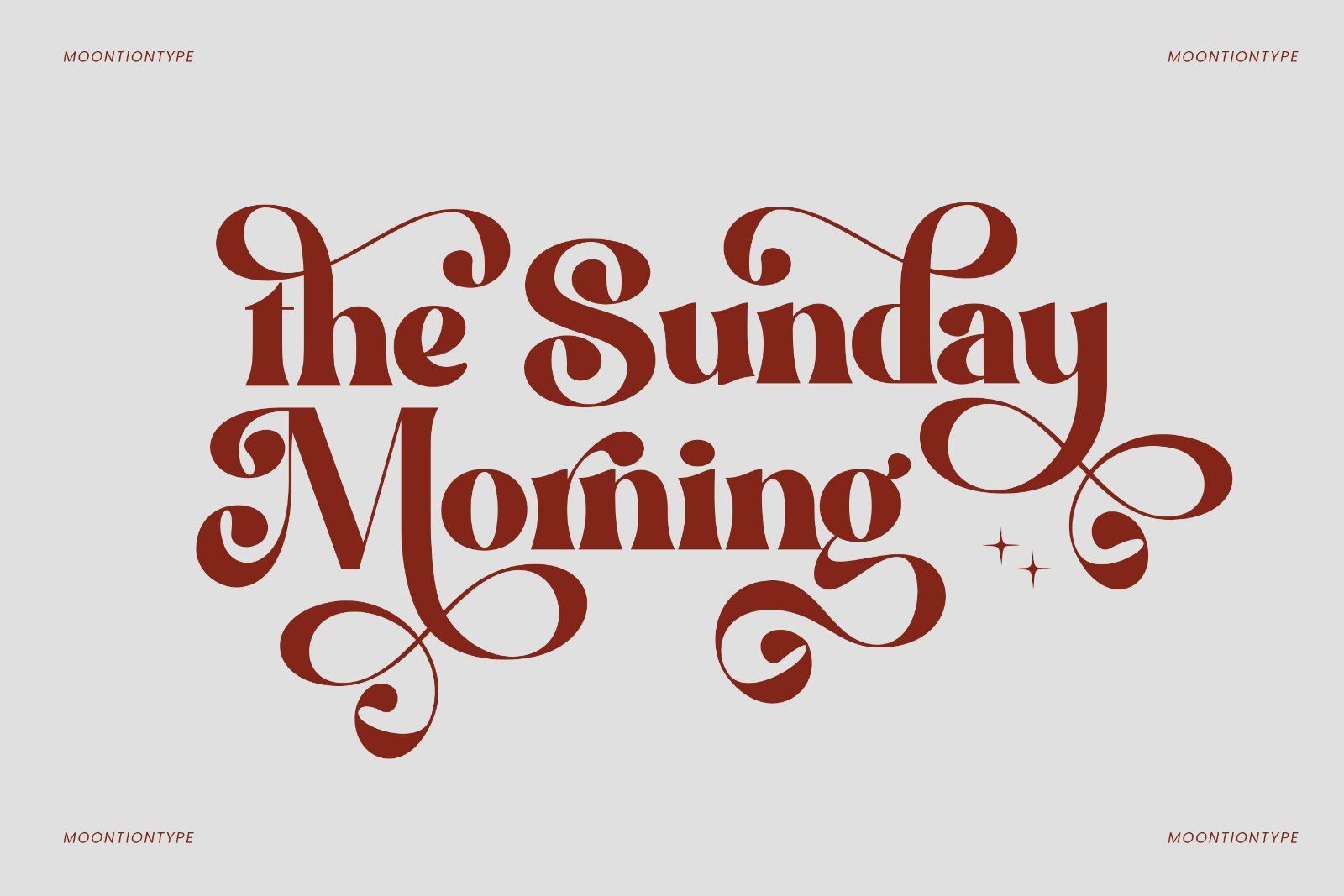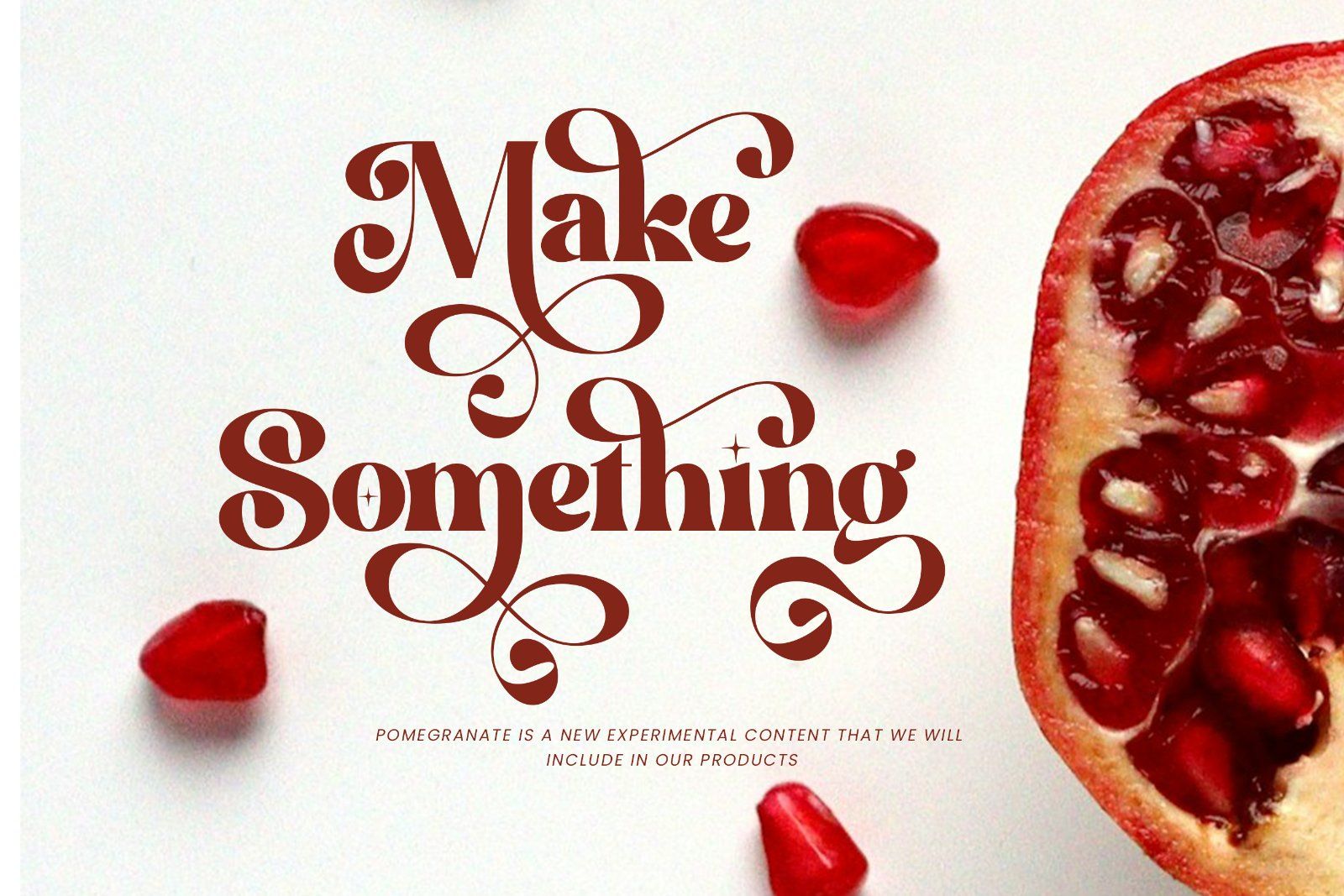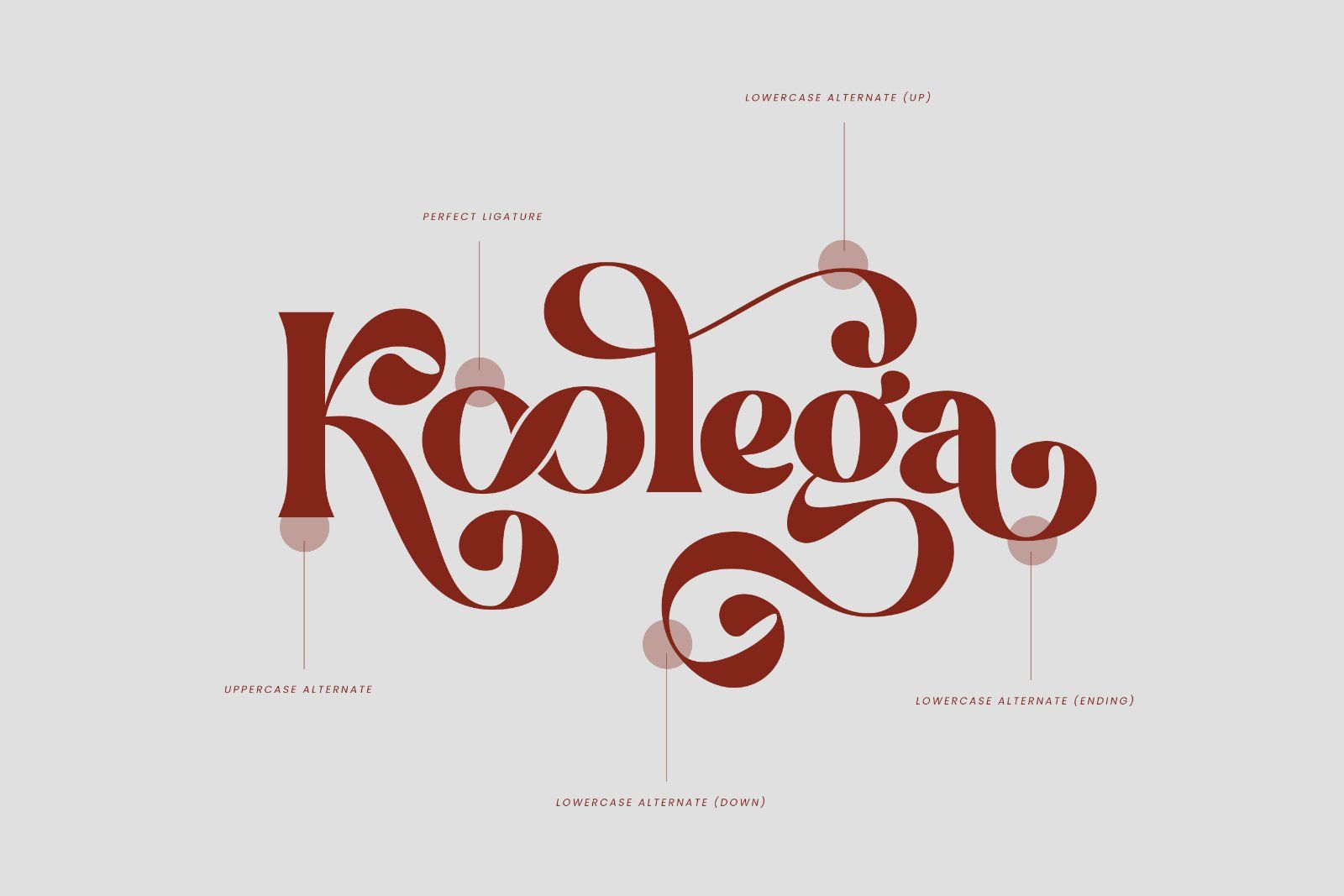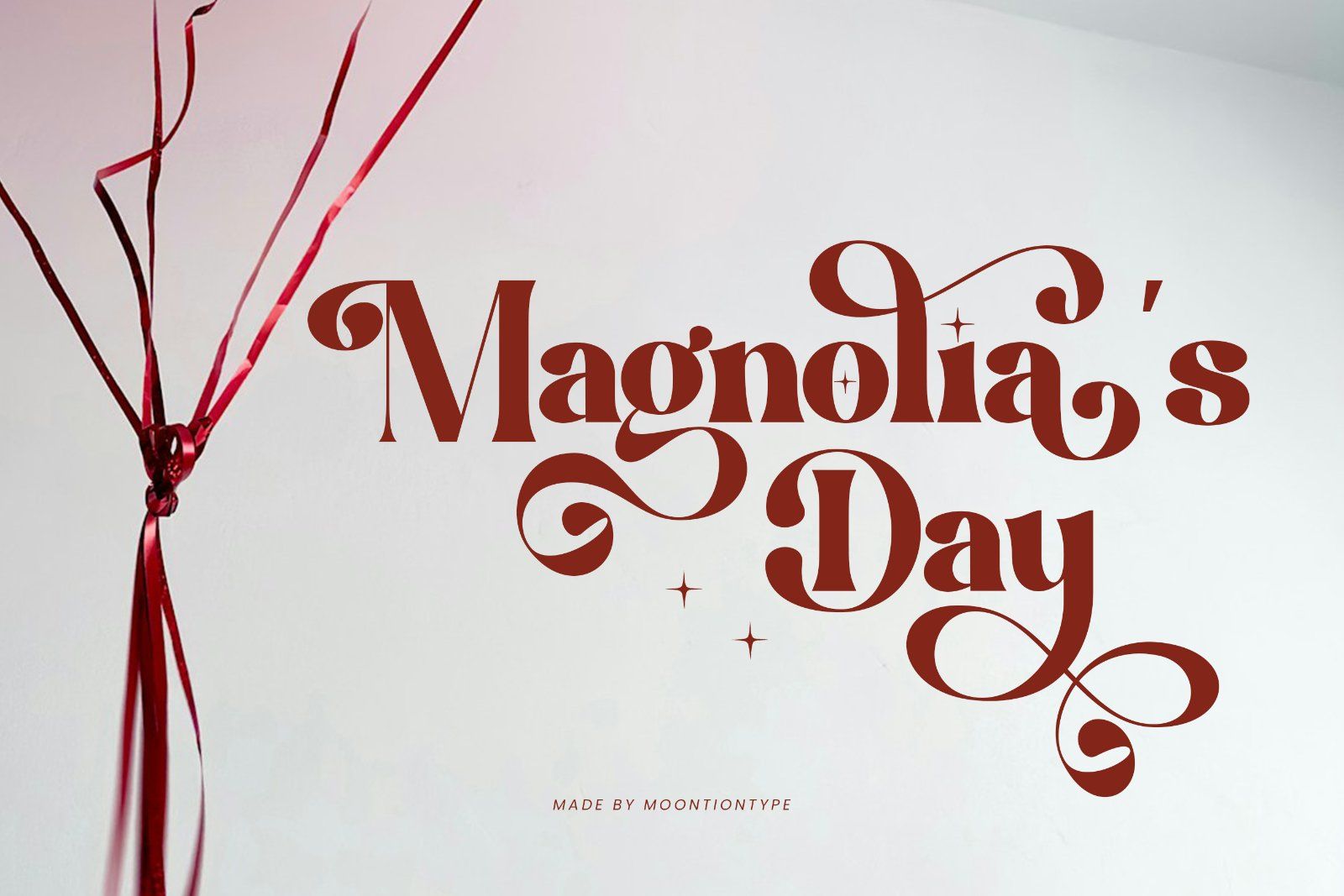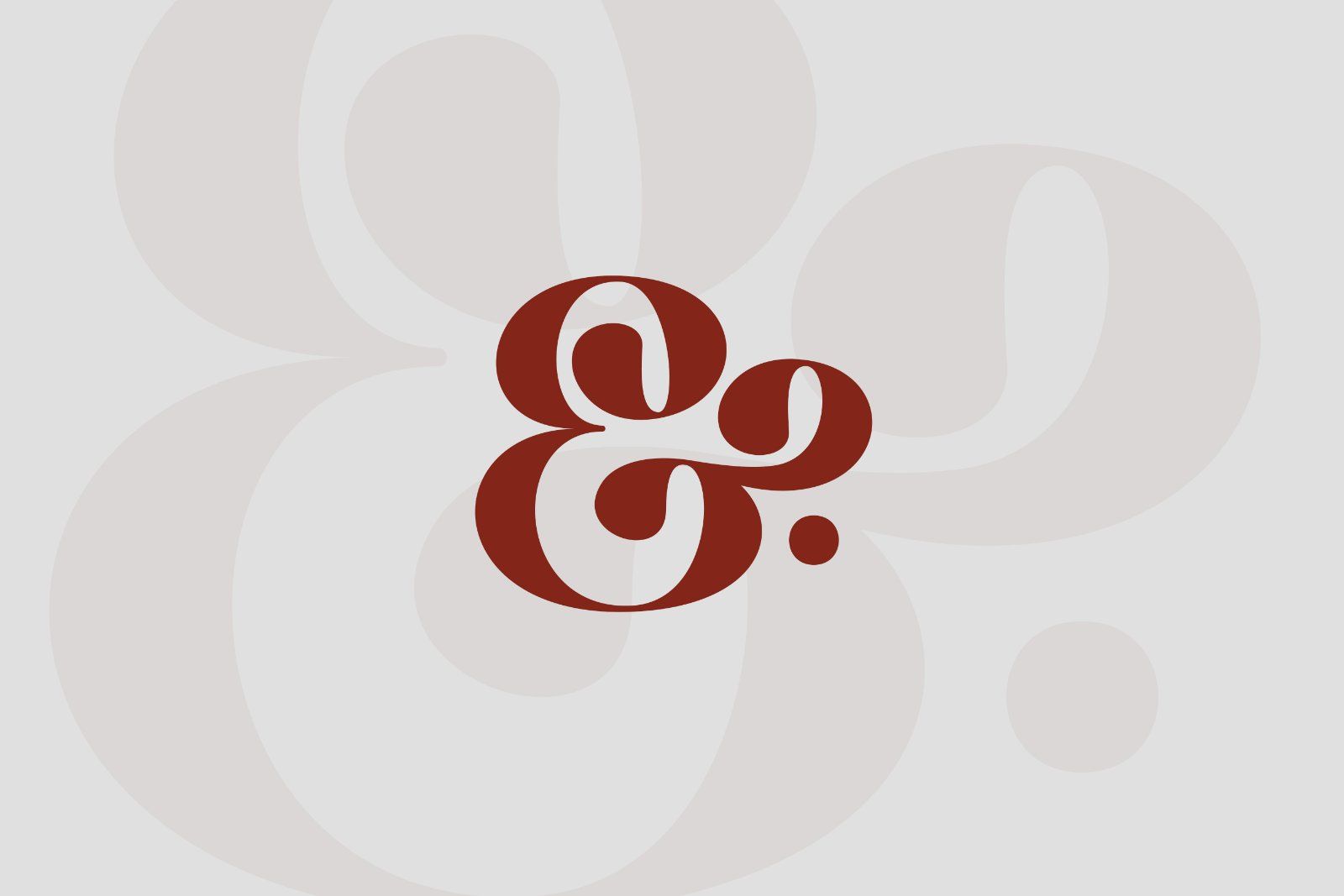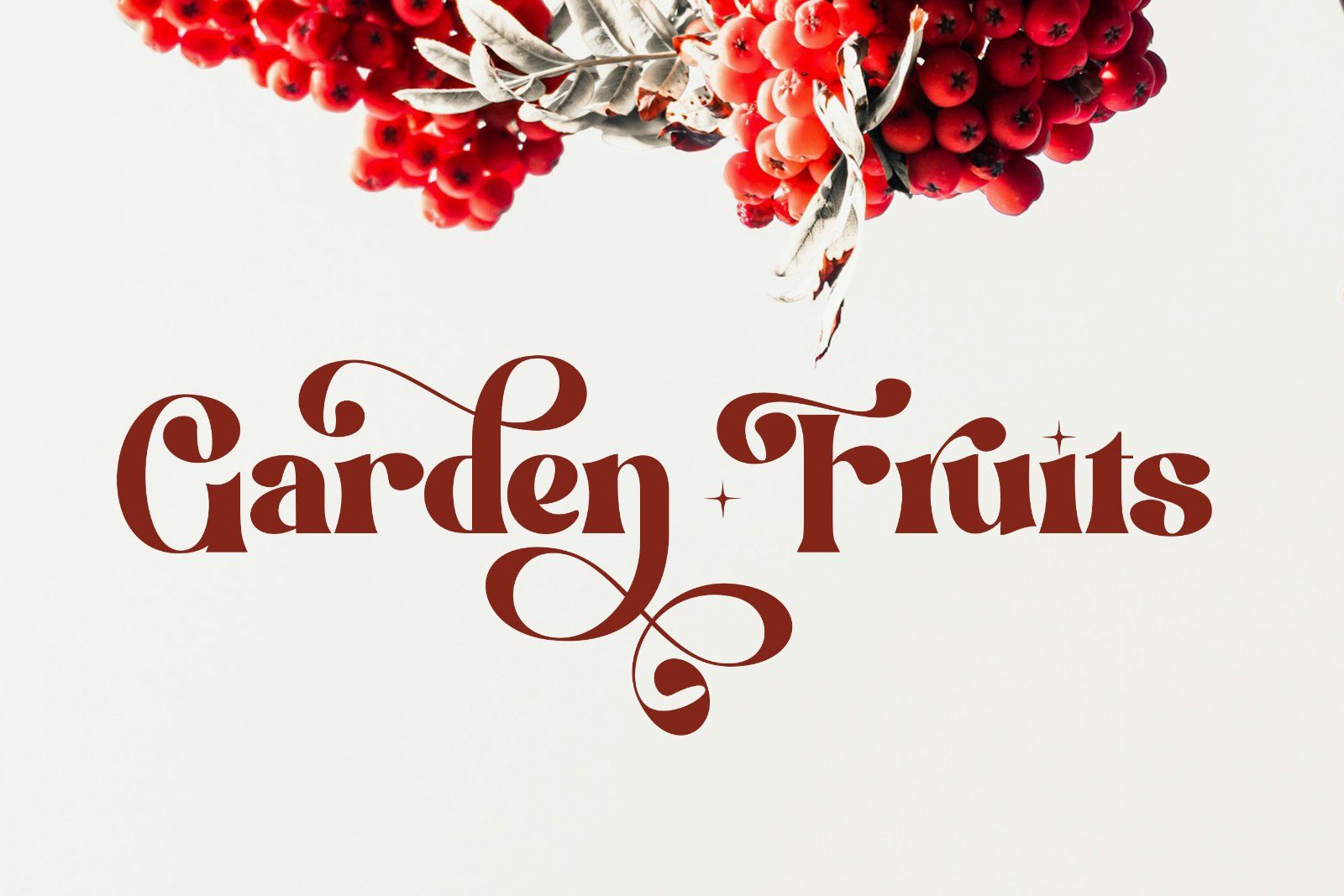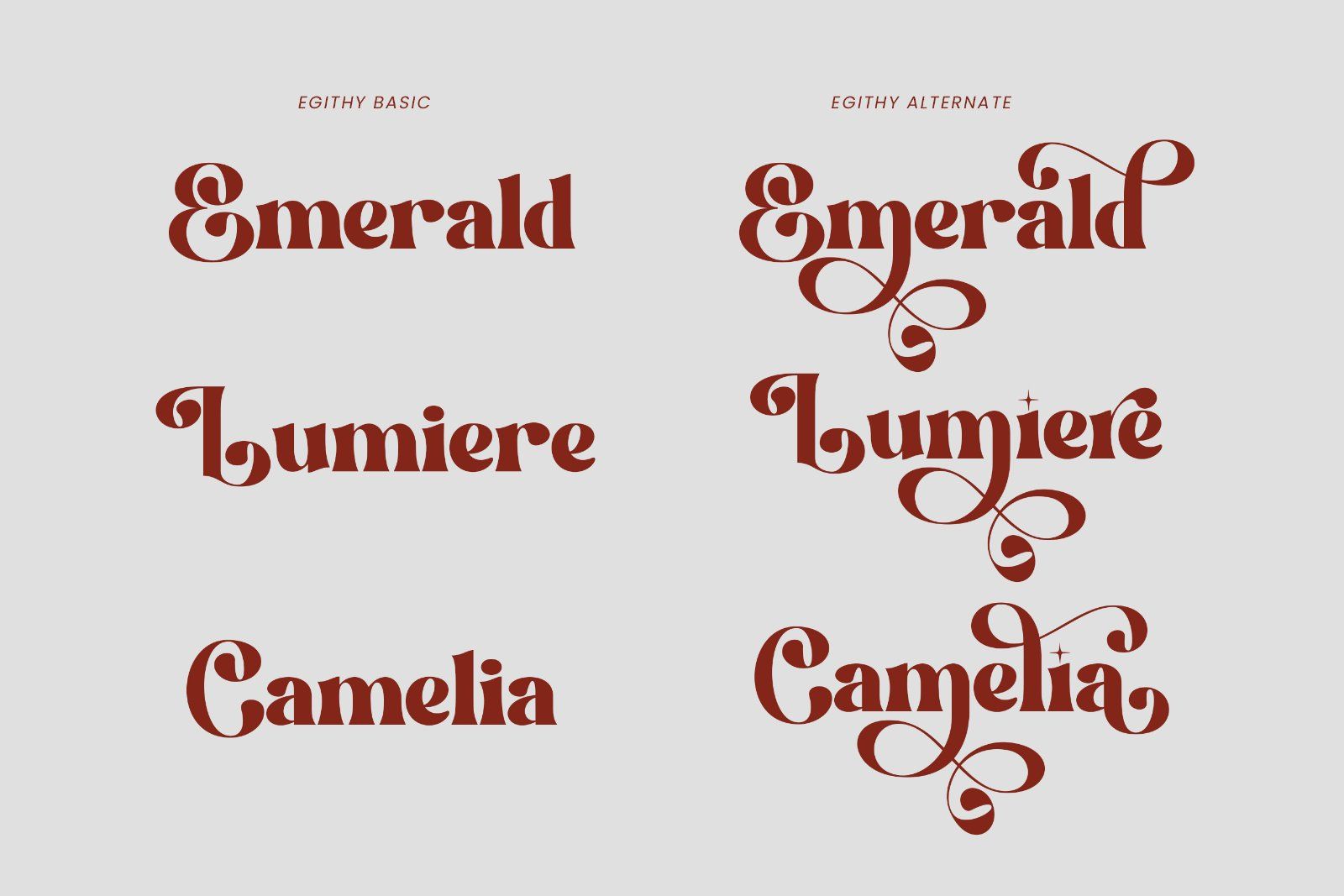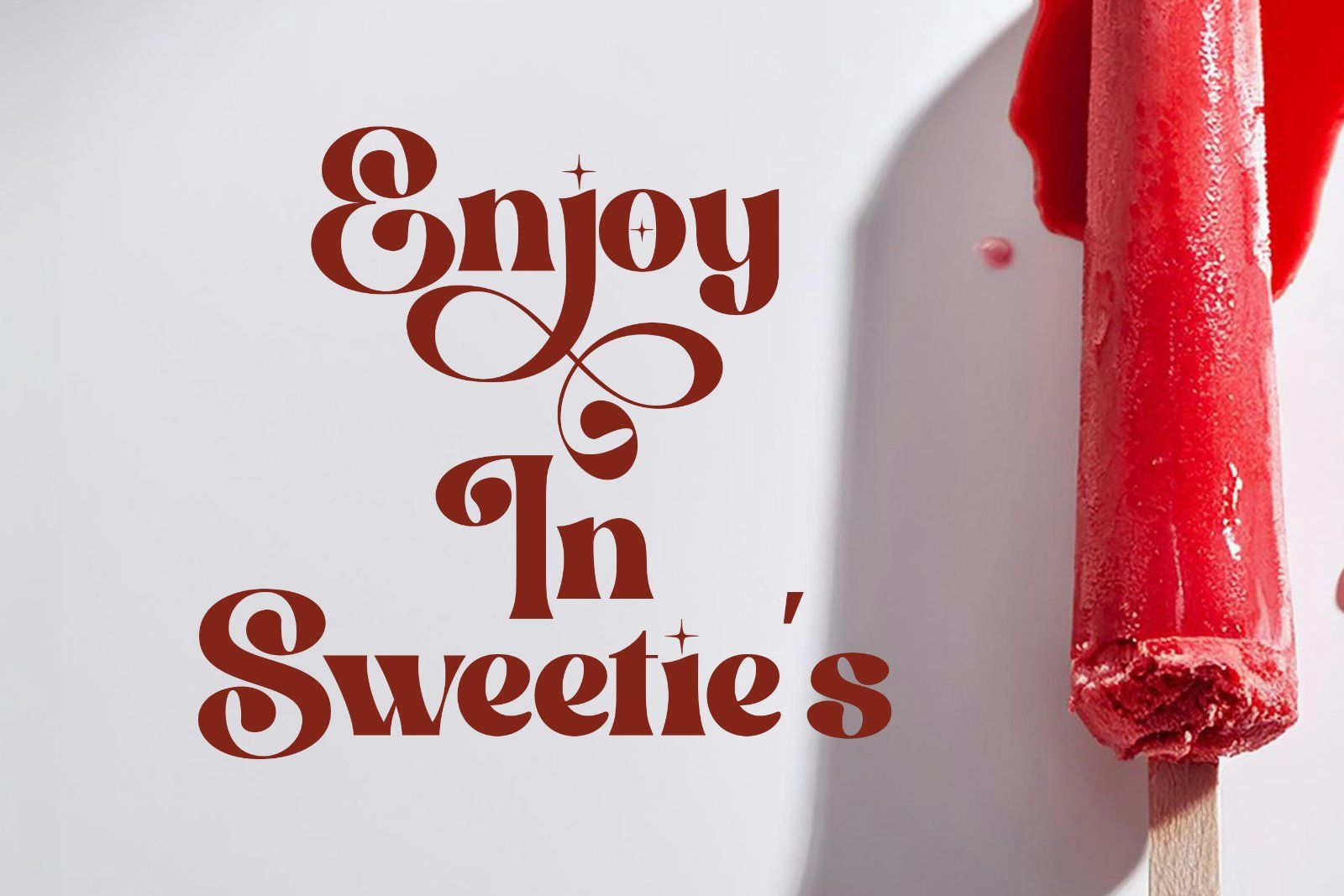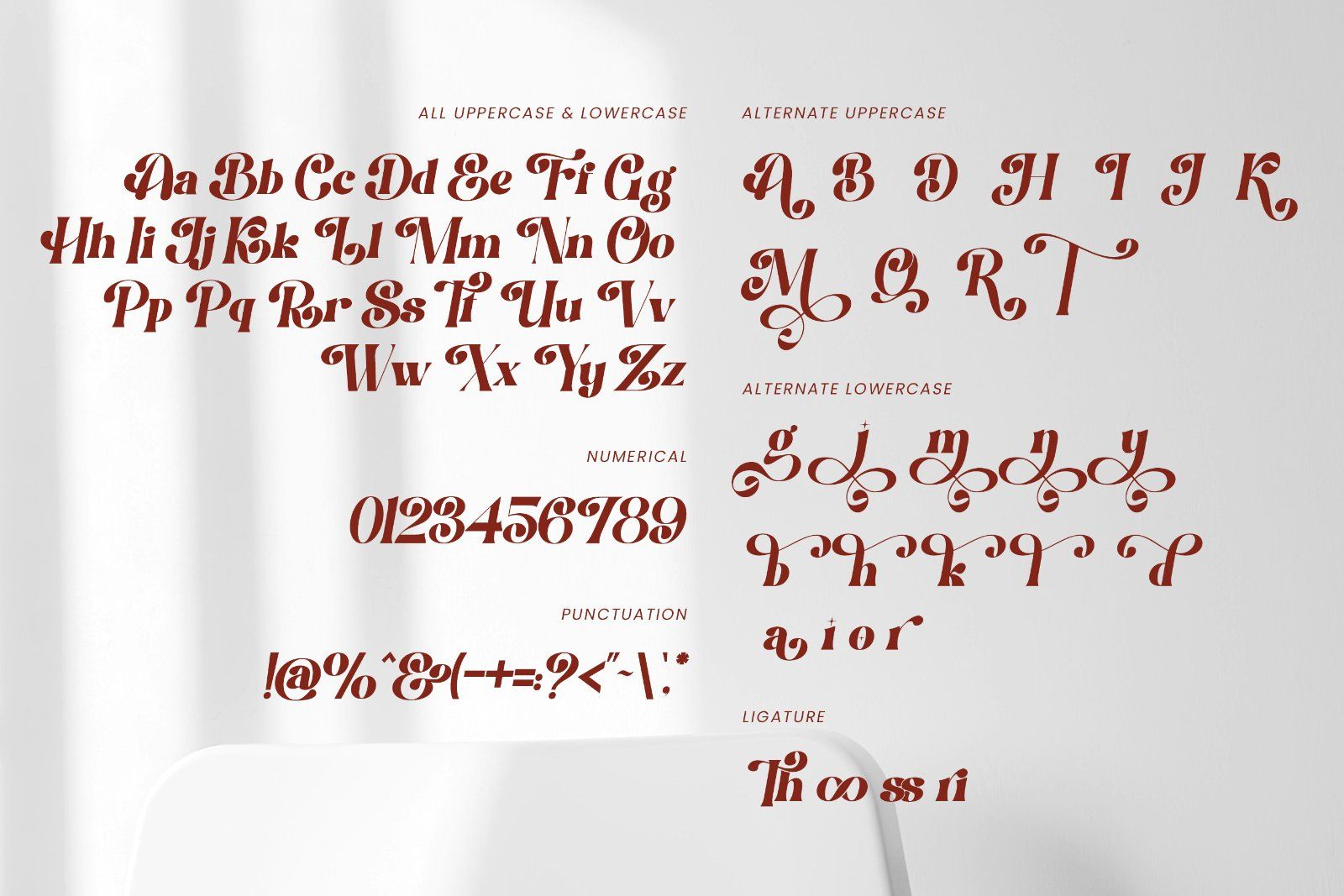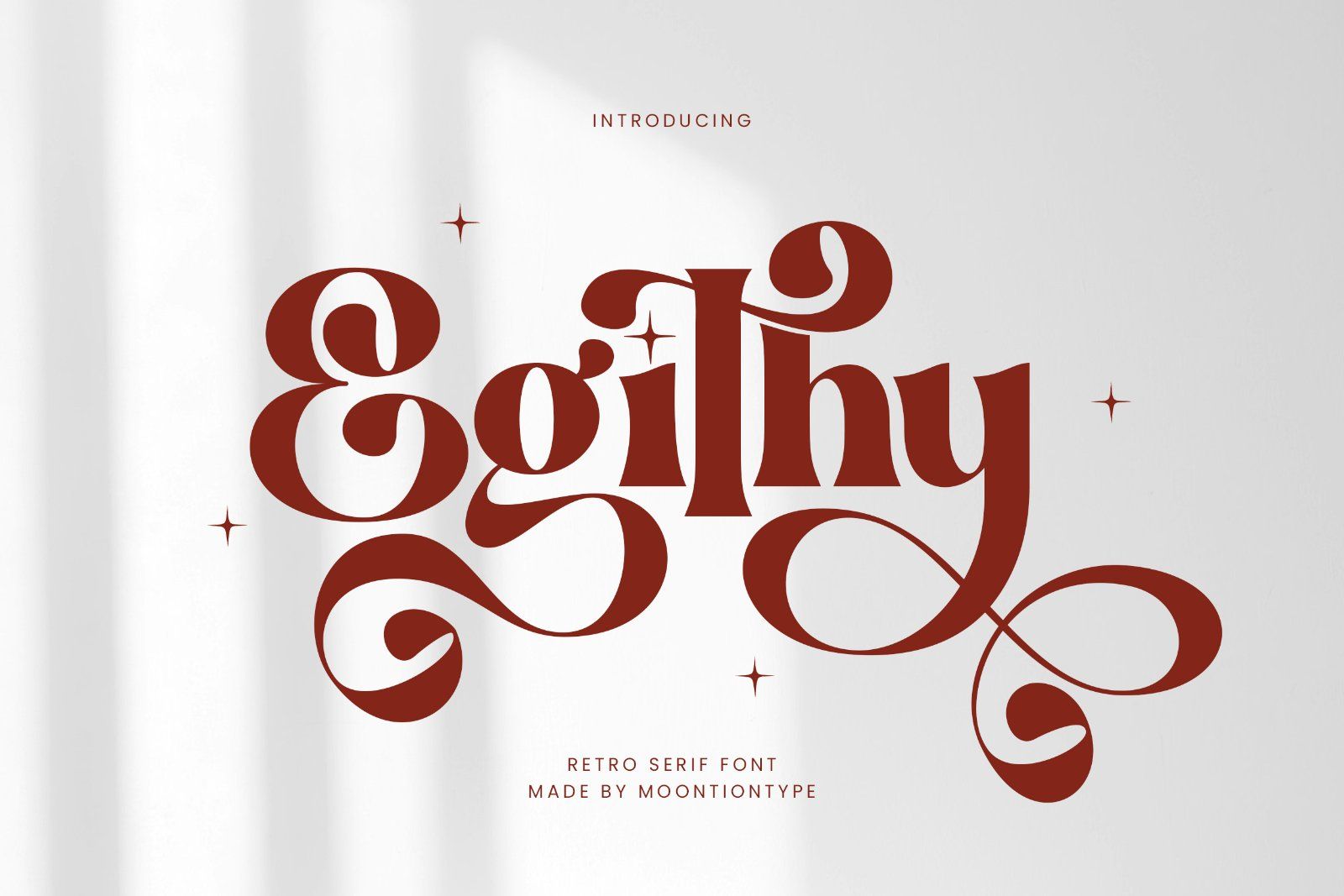
Egithy is a bold retro serif display font featuring elegant curves, expressive swashes, and a timeless vintage charm. Perfect for logos, branding, packaging, posters, and editorial designs. Add a touch of nostalgic elegance to any creative project with this stylish typeface.
Egithy Available With :
- Uppercase
- Lowercase
- Numbers
- Punctuation
- Multilingual support
- Alternate
- Ligature